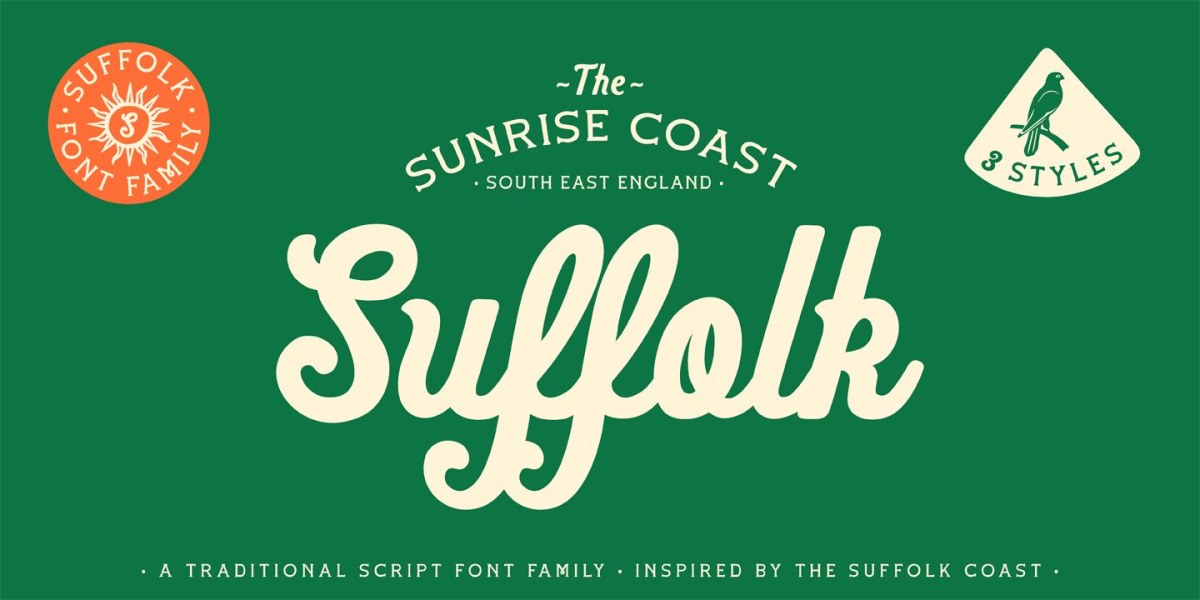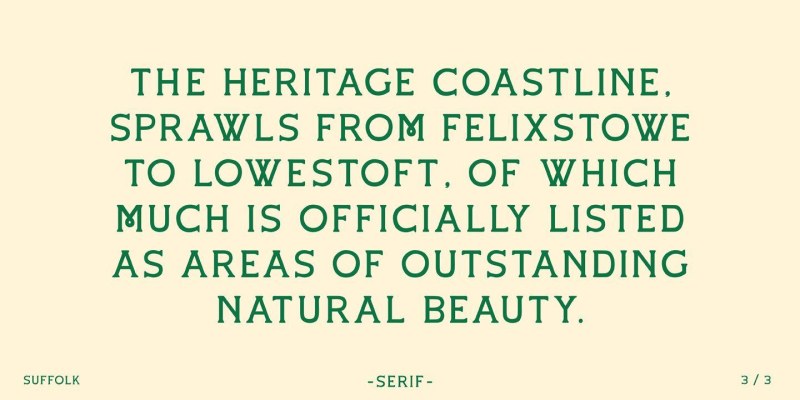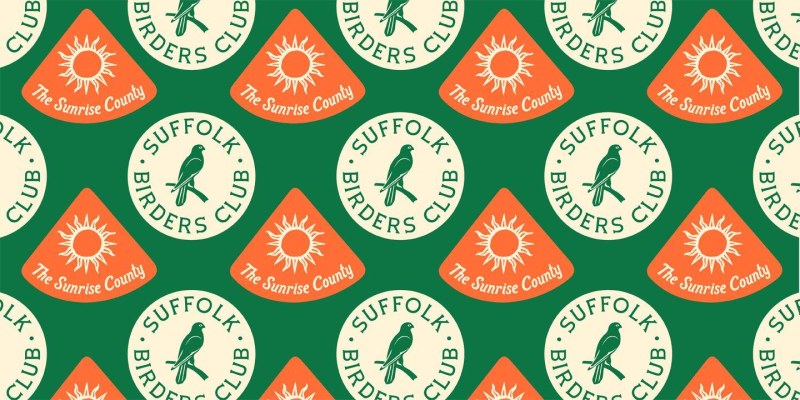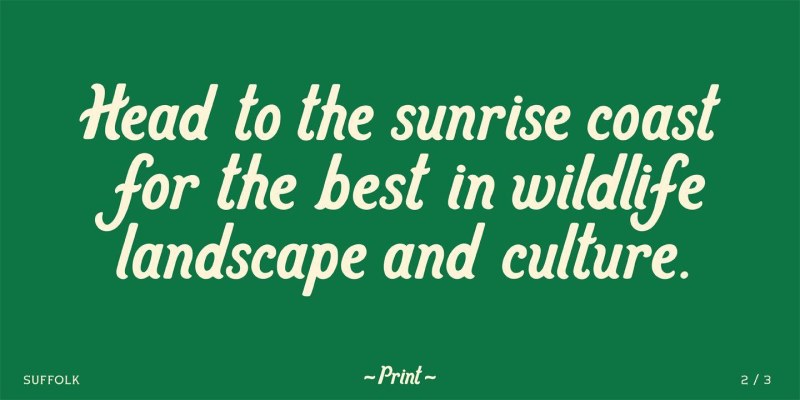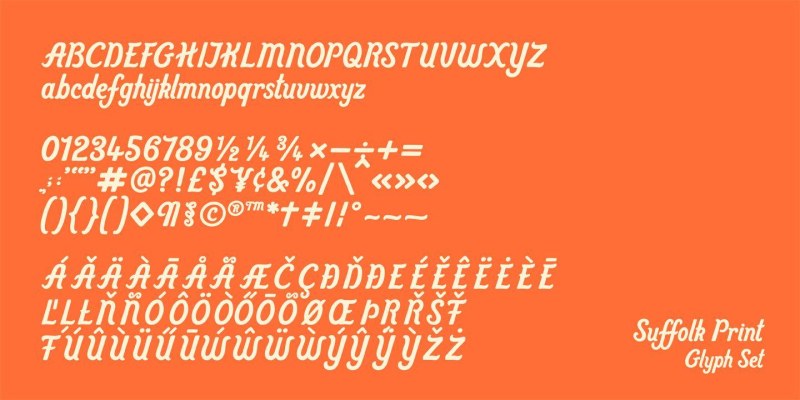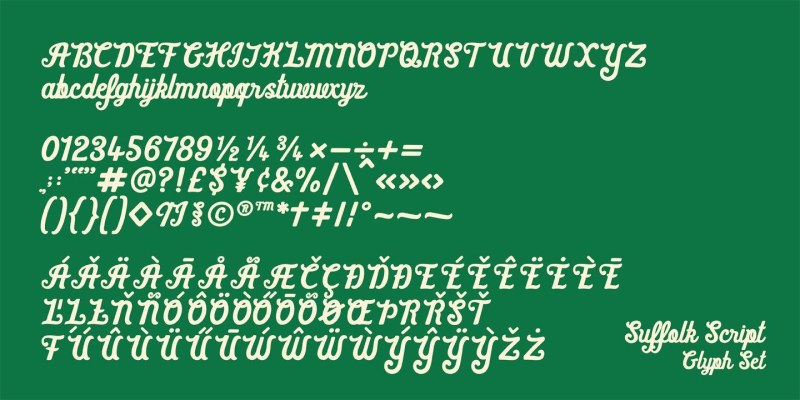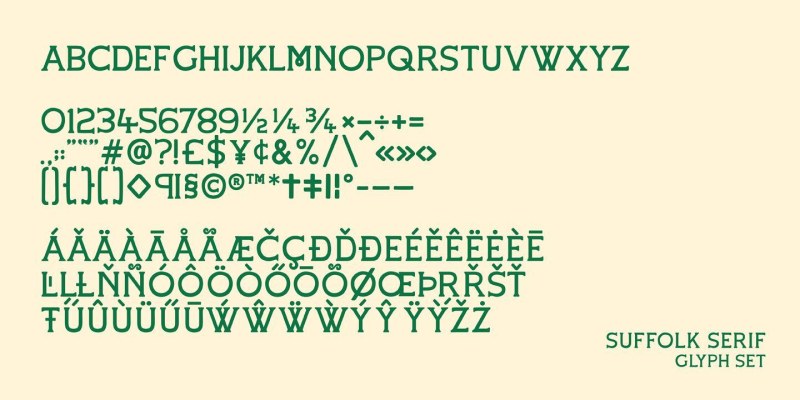
Suffolk Font Family
Suffolk is a traditional yet modern font family that takes inspiration from the county of Suffolk and its rich coastal history. This handwritten style font is a modern rustic take on a traditional script font and comes with a joined up ‘script’ style and an individual ‘print’ style. Along with a ‘serif’ style that evokes a similar feeling of old meets new that works well alongside the two handwritten styles.
Suffolk Font Family is a Font Family font that brings a professional and versatile look to your projects. Suffolk is a traditional yet modern font family that takes inspiration from the county of Suffolk and its rich coastal history.